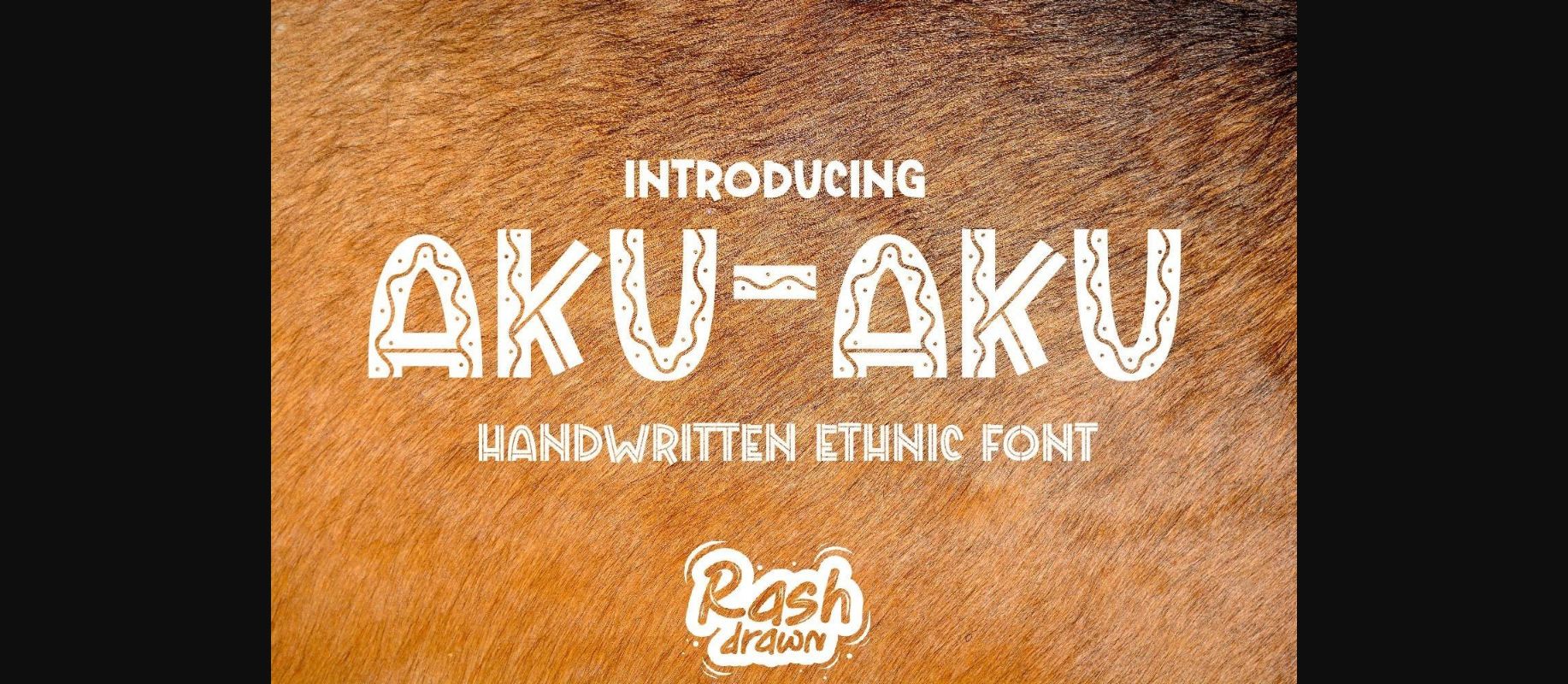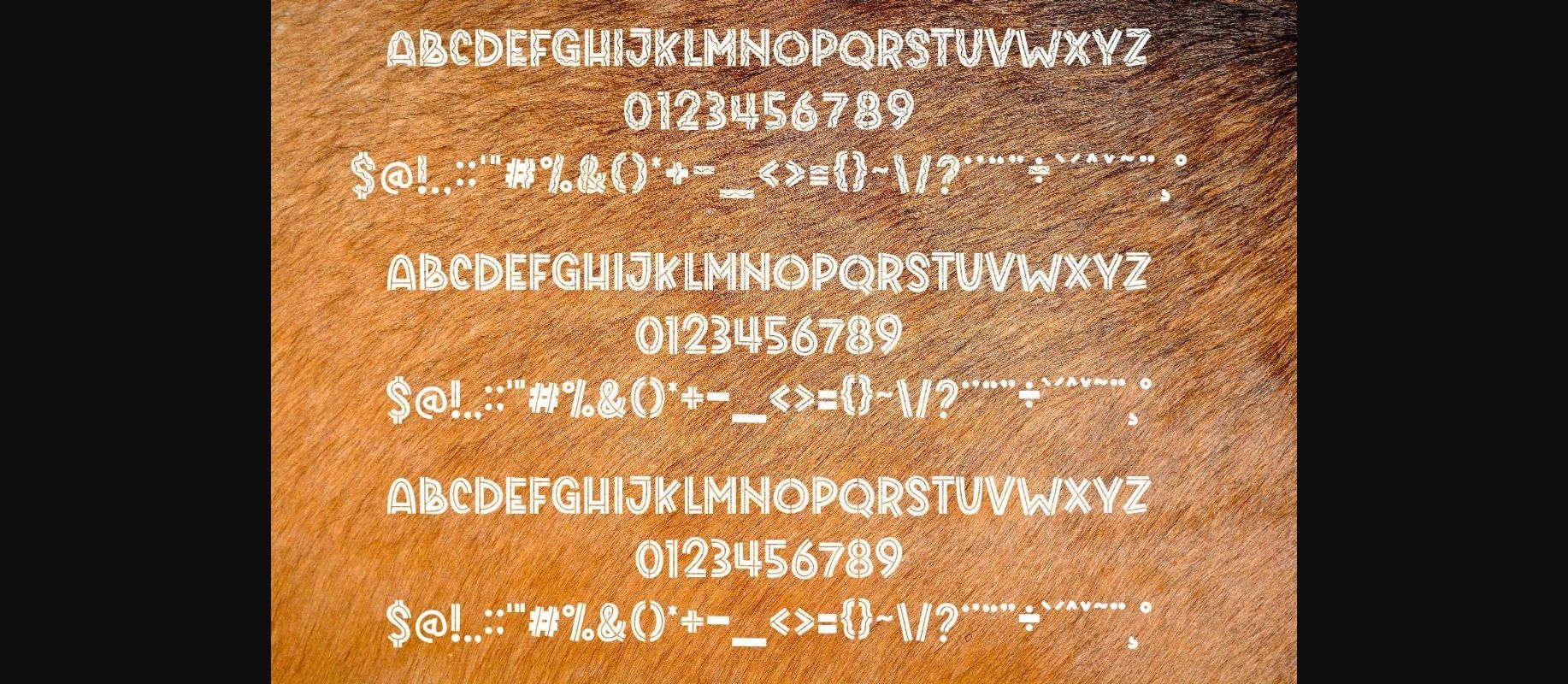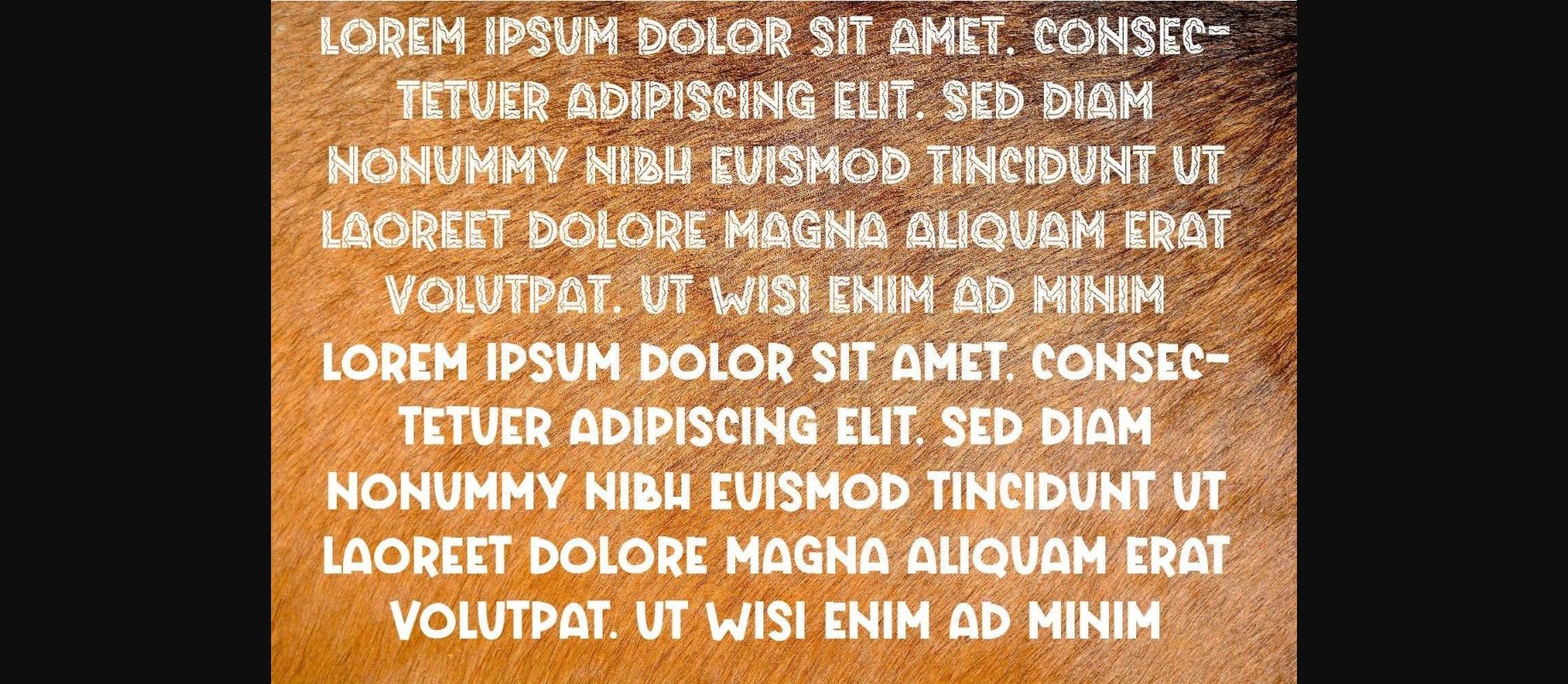
Aku-aku Font
About Aku-aku Font
Aku-Aku is an ethnic decorative font inspired by traditional tribal elements. Its unique and interesting style makes it perfect for a wide pool of creative ideas. Add it confidently to your projects, and you will love the results.